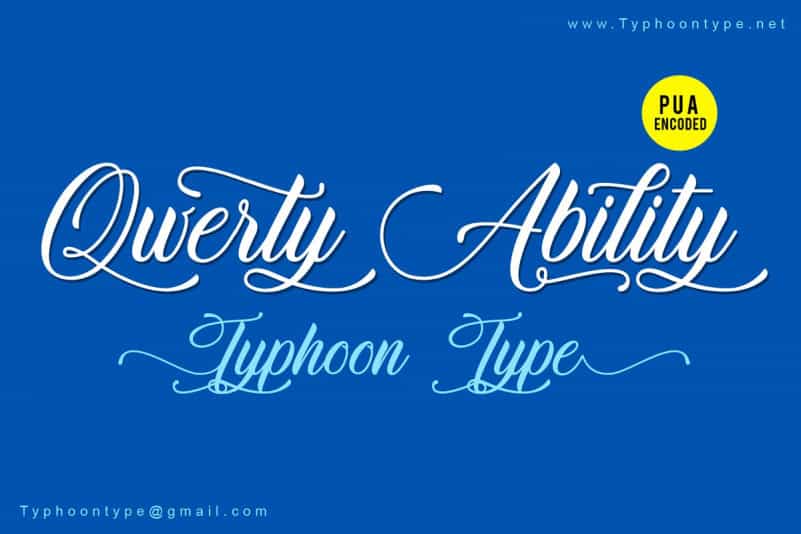
Hello! Introducing Qwerty Ability Font! Qwerty Ability – A Lovely Script Font is a font that imitates the real handwriting. It will be the best for fashion, e-commerce brands, trend blogs, wedding boutiques or any business that wants to look upscale and chic.